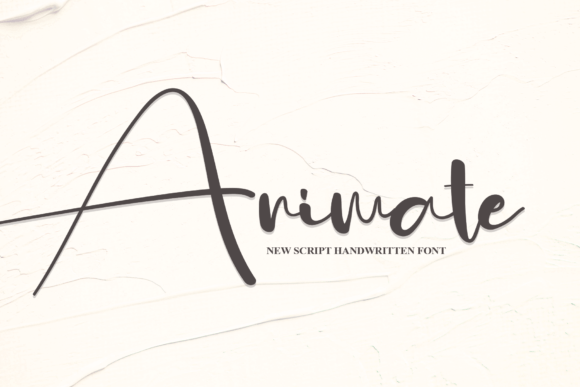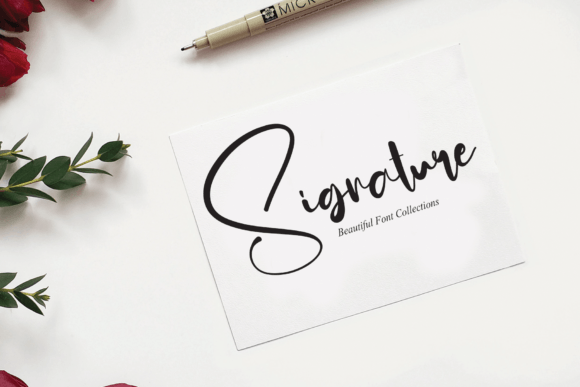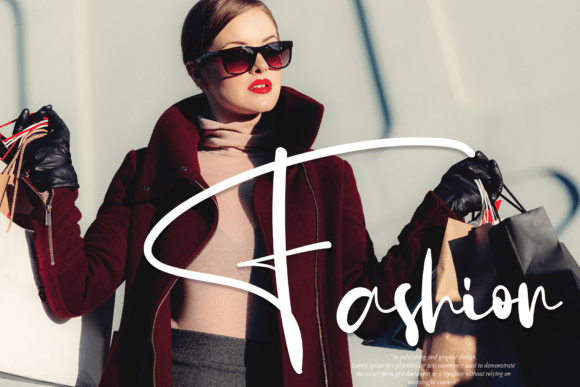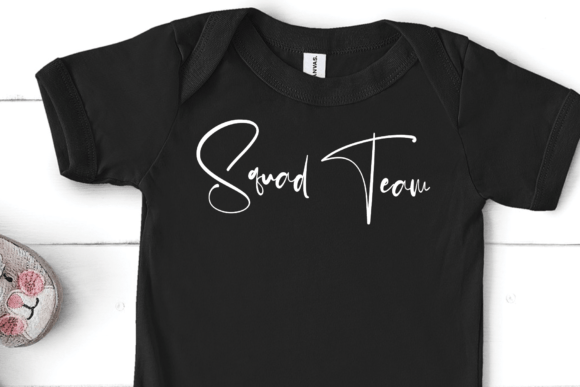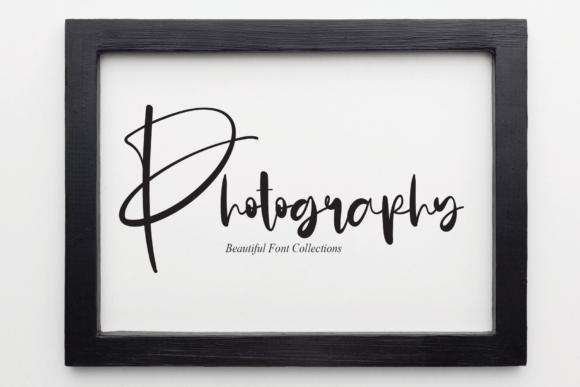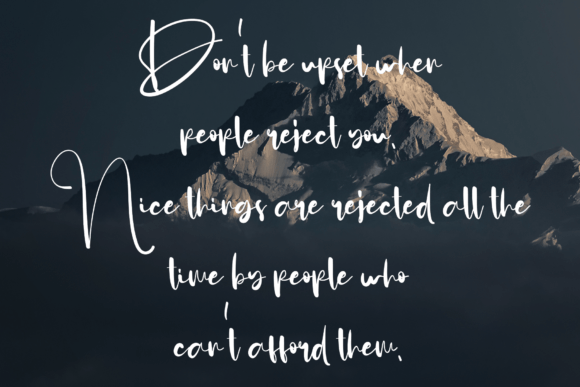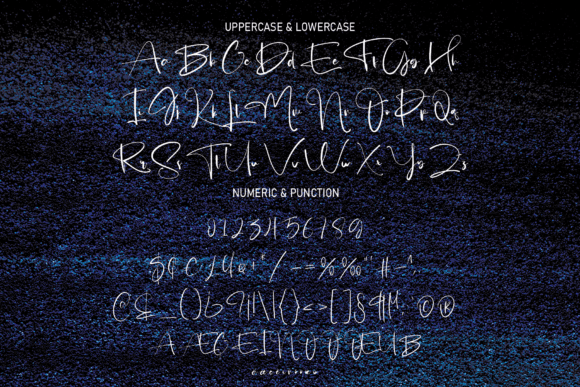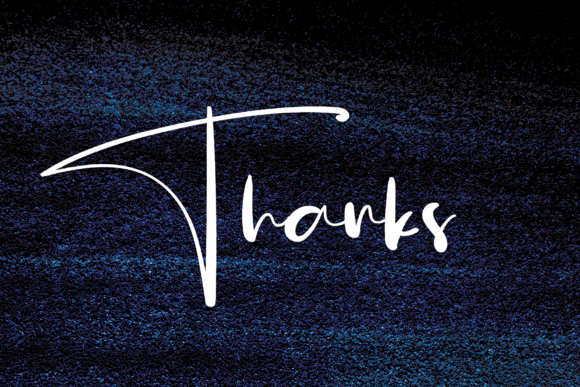
Animate Font
About Animate Font
Animate unfolds as a magical handwritten font, intricately crafted to infuse a touch of elegance into your designs. Whether you’re on the lookout for fonts to enhance your Instagram visuals or in search of calligraphy scripts for engaging DIY projects, this font serves as the enchanting key that can transform any creative idea into a genuine piece of art.
The magical allure of Animate lies in its meticulously designed handwritten strokes, adding a unique and personalized elegance to your designs. This font is a versatile choice, well-suited for a variety of creative applications, ranging from captivating social media posts to sophisticated DIY projects.
Animate effortlessly adapts to diverse design contexts, making it an excellent choice for a wide range of projects. Whether you’re crafting expressive messages, designing invitations, or adding a touch of grace to your Instagram feed, this font becomes a transformative tool that elevates your creative expression with its magical touch.
Beyond being a font, Animate serves as a bridge between creativity and elegance. Its magical quality lies in its ability to turn ordinary design ideas into genuine works of art. The handwritten script not only adds a touch of sophistication but also infuses warmth and authenticity into your creations, making it a delightful companion for those aiming to make a visual impact with grace.
In conclusion, embrace the magic of Animate as it graces your designs with elegance and charm. Whether you’re an Instagram enthusiast, a DIY creator, or a professional designer, let this font be the catalyst that turns your creative ideas into true masterpieces. Create with confidence, and let Animate be the magical touch that makes your designs stand out as genuine works of art.